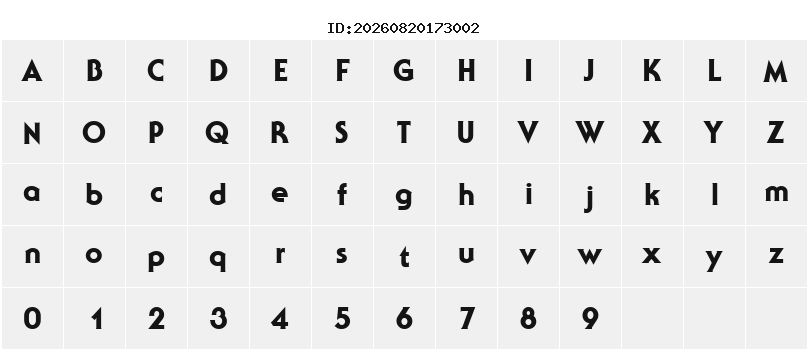
SerenadeLH Preview
• Font Name: SerenadeLH
• Font ID: Altsys Fontographer 3.5 SerenadeLH Bold
• Full Font Name: SerenadeLH Bold
• Version: Altsys Fontographer 3.5 26.10.1993
• PostScript Name: SerenadeLH-Bold
About SerenadeLH.ttf
SerenadeLH.ttf is a modern, elegant sans-serif font designed for ultimate readability and visual harmony. Perfect for branding, headlines, web design, and print materials.